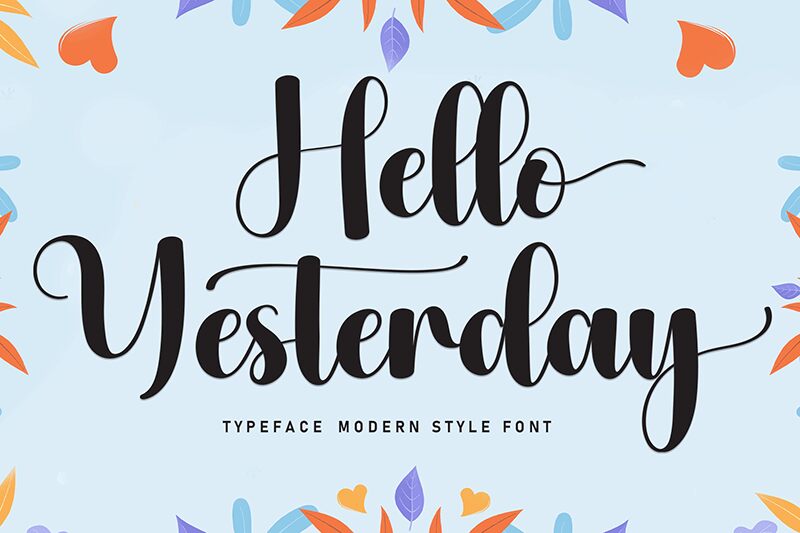
Hello Yesterday
Hello Yesterday font is a free handwritten font with an elevated elegance shared in its letterforms. In this decorative masterpiece, the letters created carry a graceful flow which gives them a formal feel. Its overall look is expressive, artistic, and vintage-inspired, and can thus be used in designs with such themes.
This resource by Scratchones is fitting for stationery designs like greetings cards or invitations. Additionally use it for quotes, tea or coffee branding projects, logos, packaging design ideas and book titles. It is usable on apparel designs as well for creative magazine covers and other niches that demand high-end typefaces.